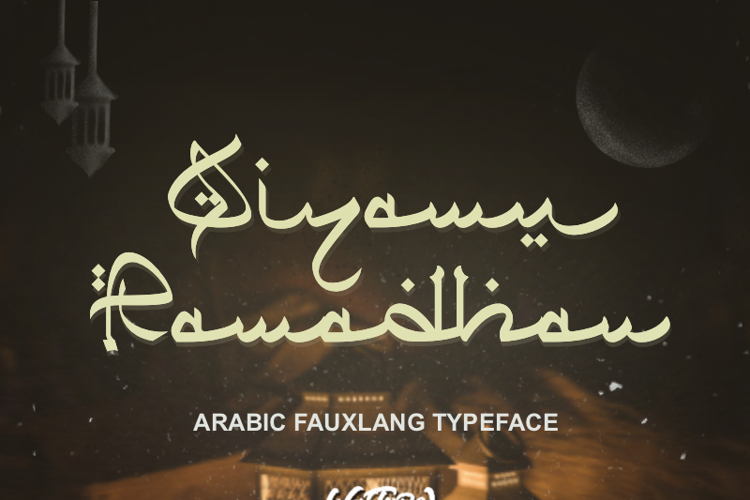
Qiyamu Ramadhan Font
About Qiyamu Ramadhan Font
Fonts with a touch of Arabic nuances have warmed up the atmosphere in the midst of the pandemic in the month of Ramadan, with a simple concept that is expected to be useful for all users of these fonts.